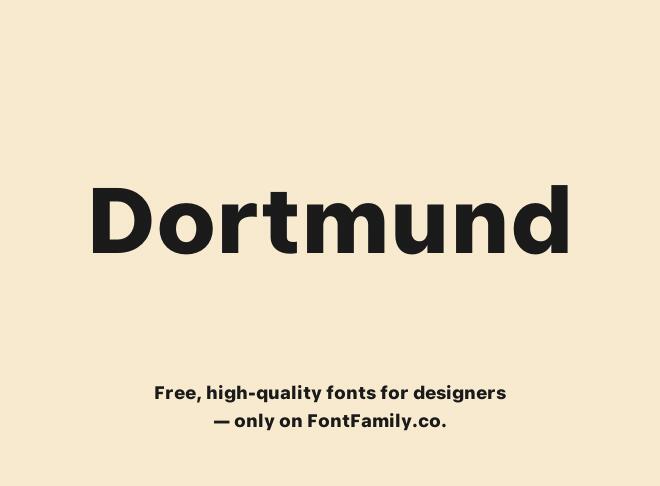
Dortmund Font
The Dortmund Font, crafted by Hans-Jürgen Ellenberger, is a bold, modern, and geometric typeface that stands out in any design application. Its clean lines and sharp edges give it a contemporary feel, making it perfect for logos, headlines, posters, and branding purposes. This font offers a unique blend of simplicity and sophistication, much like the city it was named after, Dortmund, Germany. The Dortmund Font is often compared to similar geometric fonts, but its distinct style and character set it apart. Its bold weight makes it highly legible, even at smaller sizes, making it a versatile choice for both print and digital designs. The Dortmund Font, with its open font license, is a must-have asset for any designer's toolkit.
Categories | Modern Bold Display |
Author | Hans-Jürgen Ellenberger |
Release Year | 2012 |